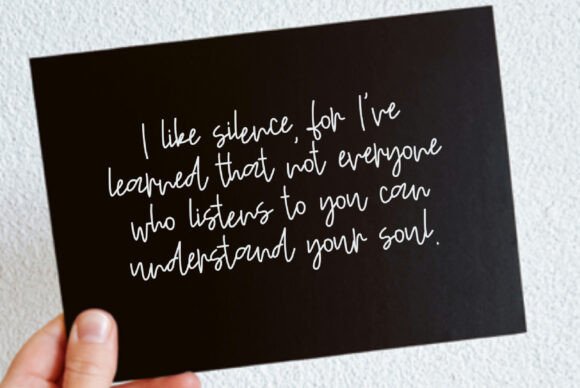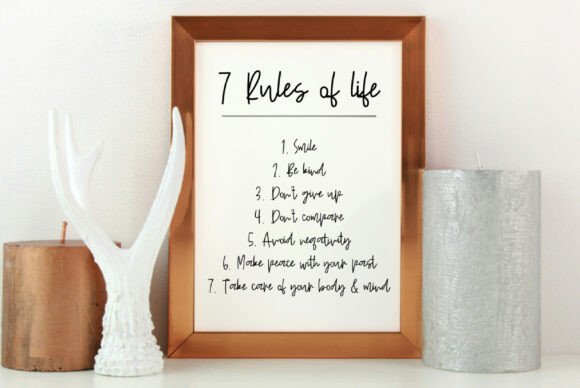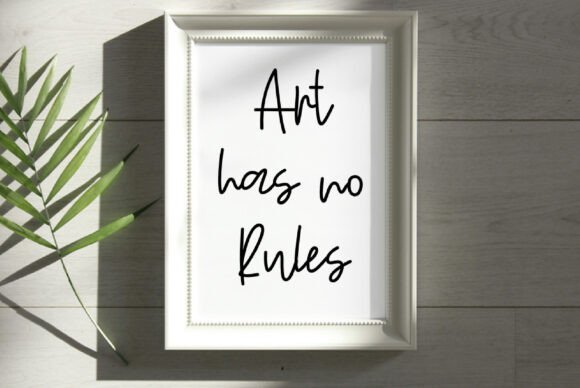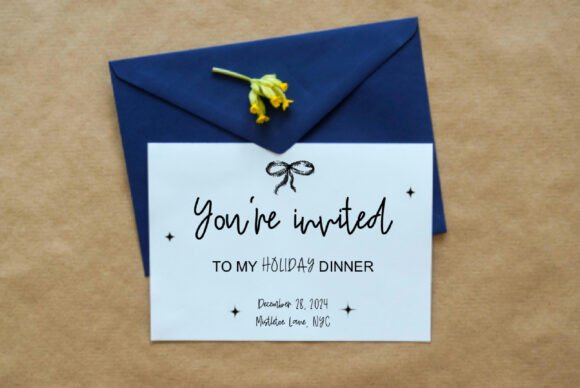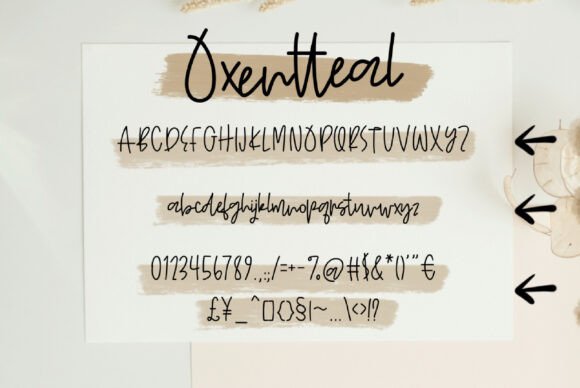
Introduction to Oxentteal Font Font
Fonts play a crucial role in design, and the Oxentteal Font font is a typeface that brings both character and versatility to any project. Whether you’re working on a branding project, a website, or a print design, the Oxentteal Font font offers a unique style that can elevate your work.
Introducing Oxentteal, a stunning handwritten typeface that exudes both charm and sophistication.
Designed with a consistent brushstroke thickness, Oxentteal blends the allure of natural handwriting with a touch of professional polish Its unique forms may appear intriguingly abstract at first glance, creating an artistic flair that sets it apart while maintaining an elegant and refined appearance.
Key Features of Oxentteal Font Font
Why Choose Oxentteal Font Font?
The Oxentteal Font font is more than just a typeface – it’s a design tool that helps you communicate your message with style and clarity. Its unique character set and versatile design make it suitable for a wide range of applications, from elegant invitations to bold headlines.
With its carefully crafted letterforms and balanced proportions, the Oxentteal Font font ensures readability and visual appeal across all mediums.
What makes Oxentteal Font font special?
The Oxentteal Font font stands out with its unique design, exceptional readability, and versatility across various design applications.